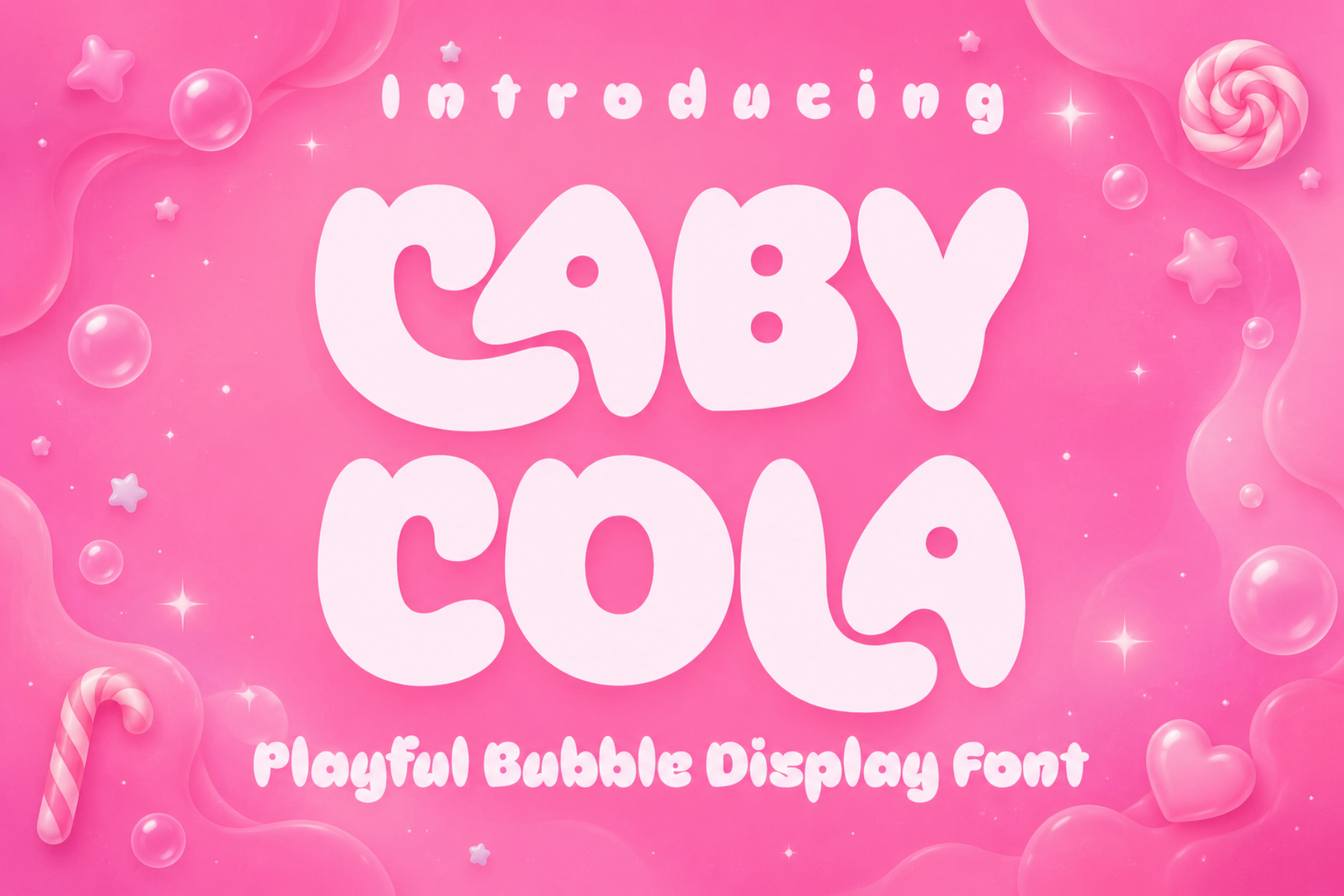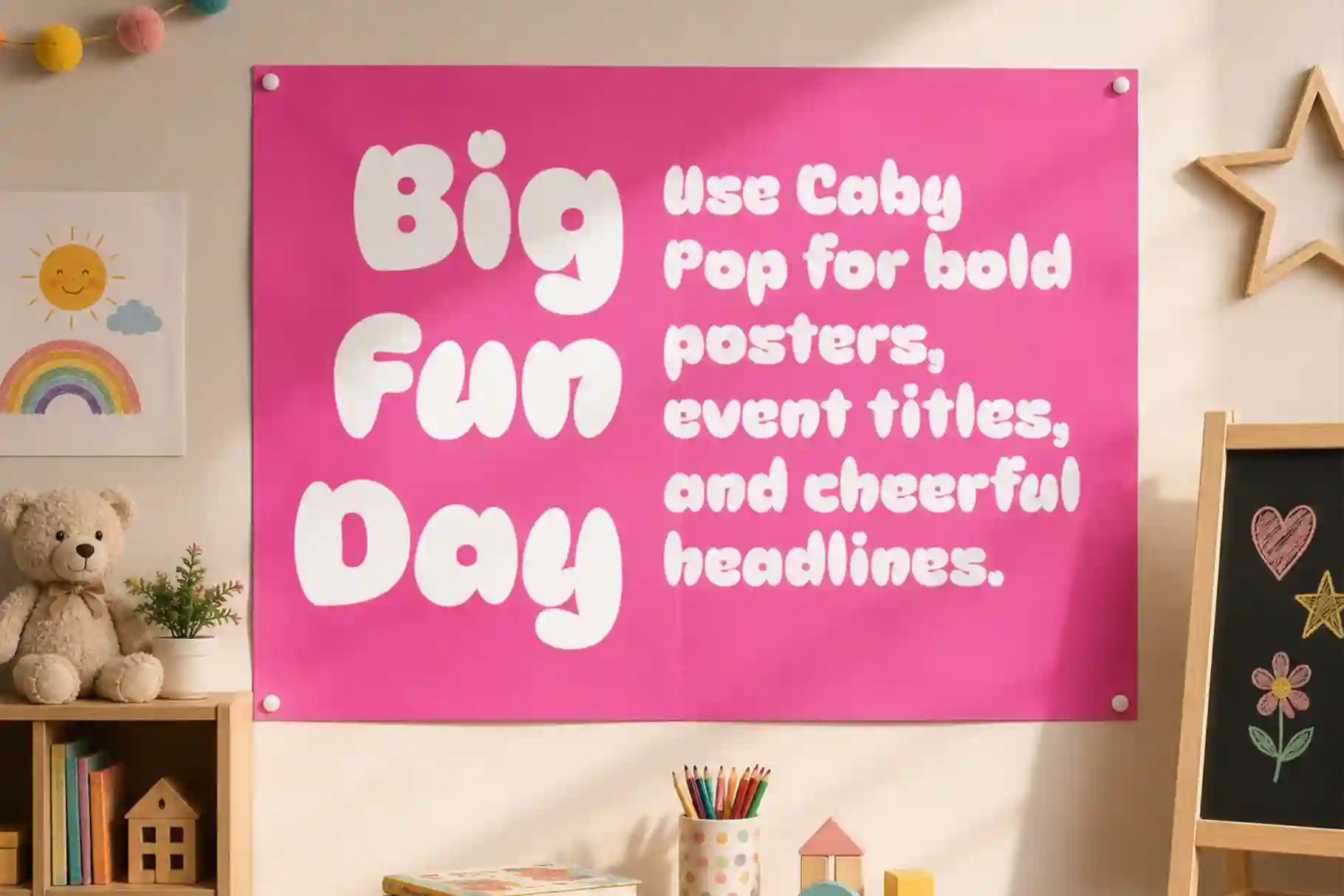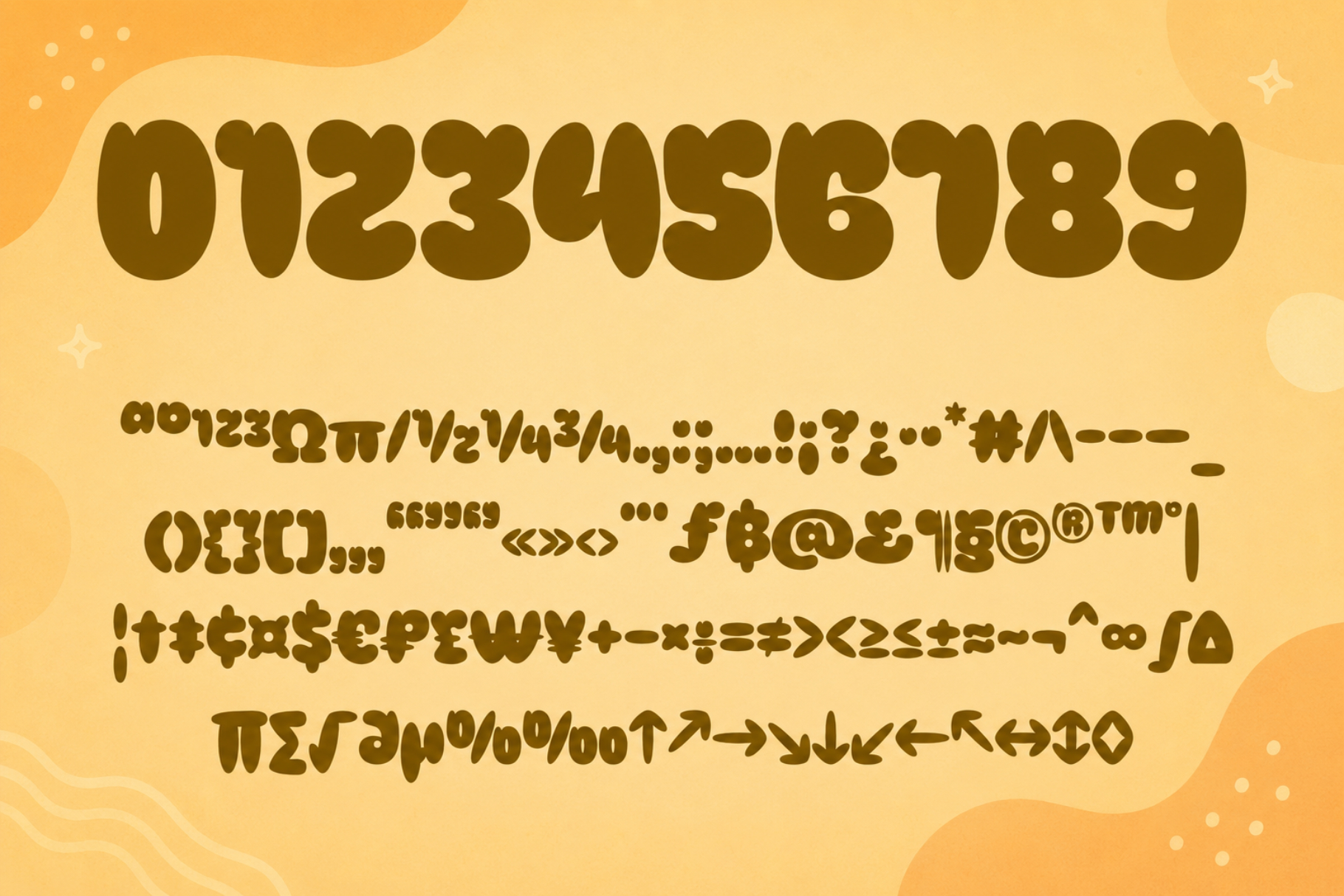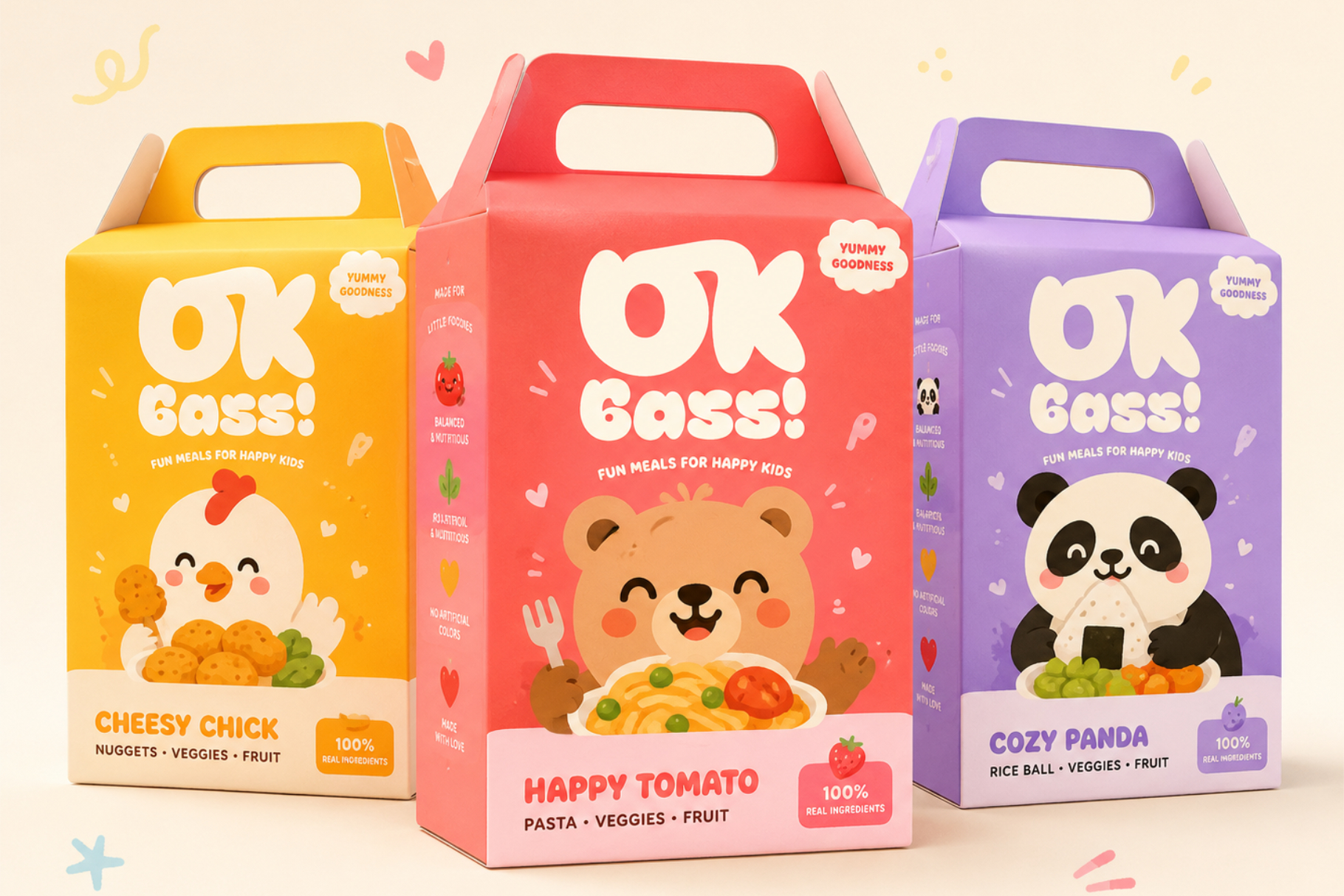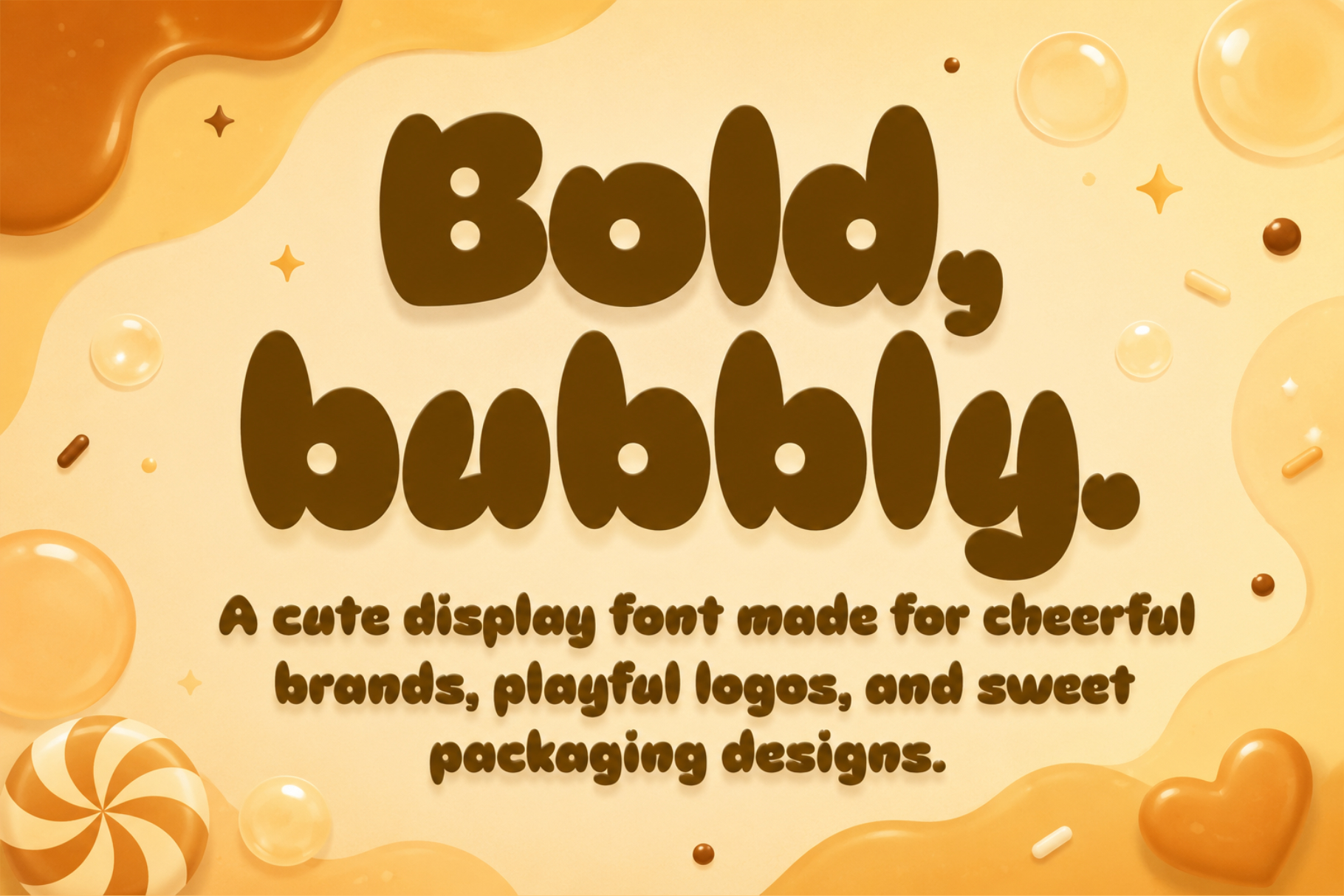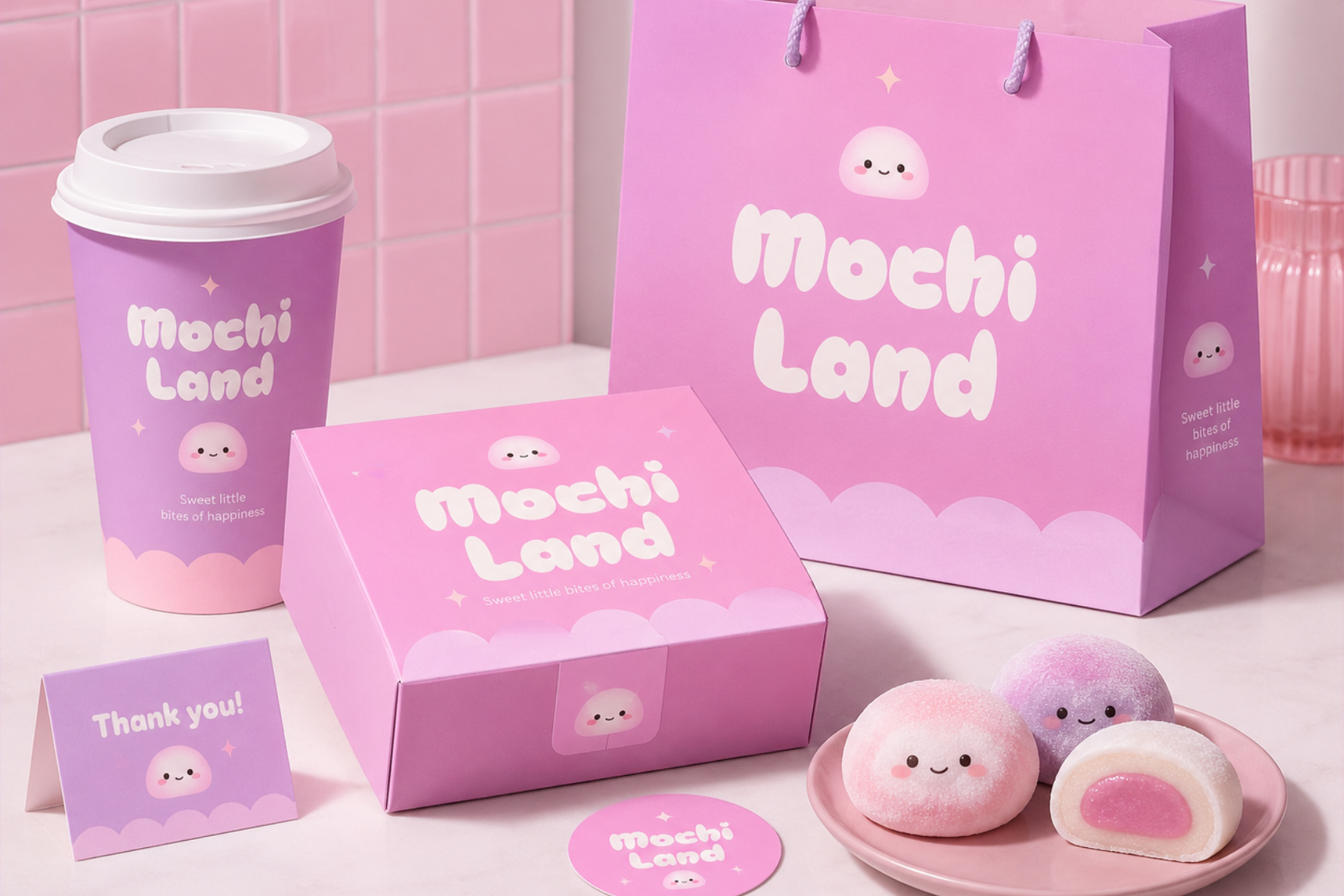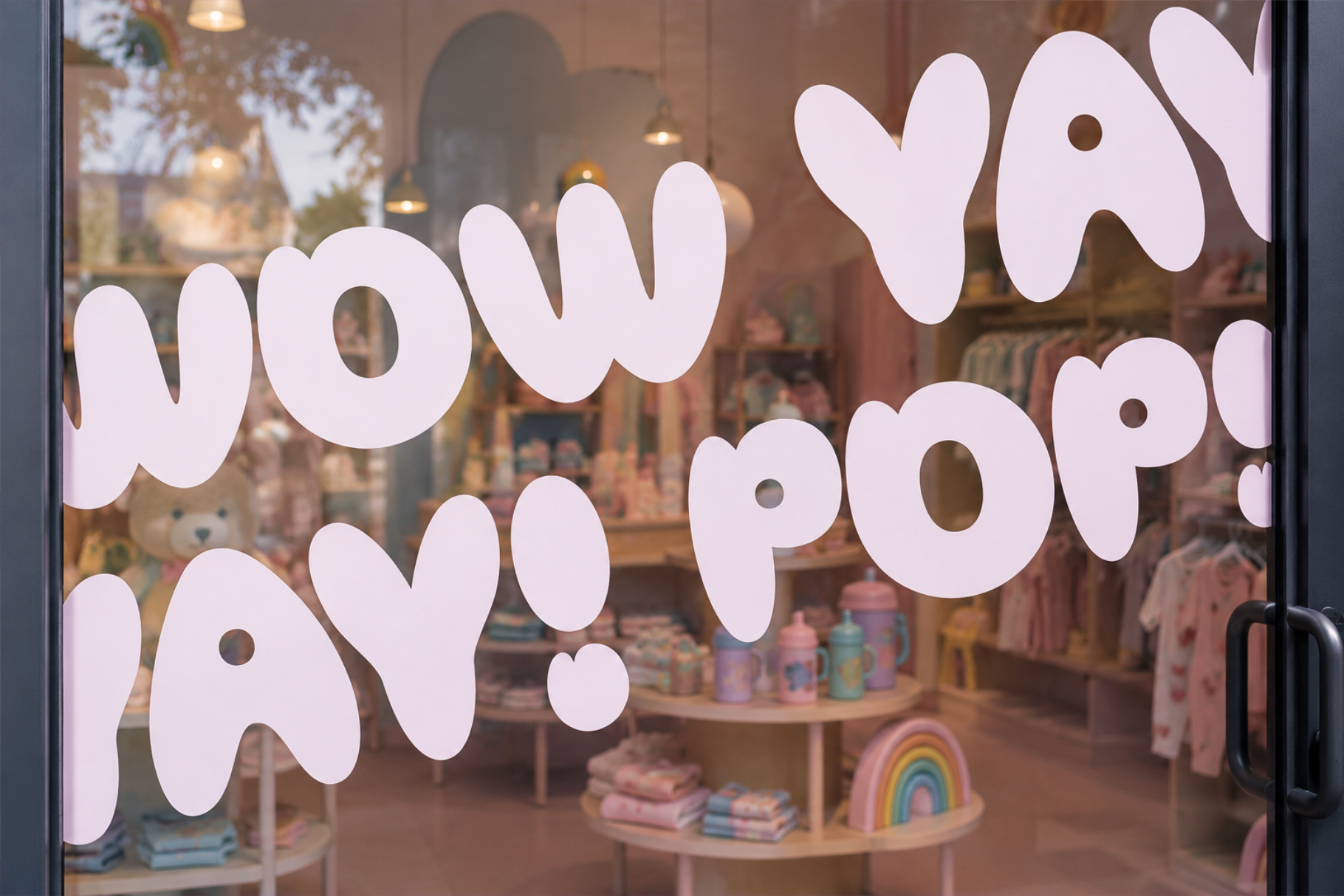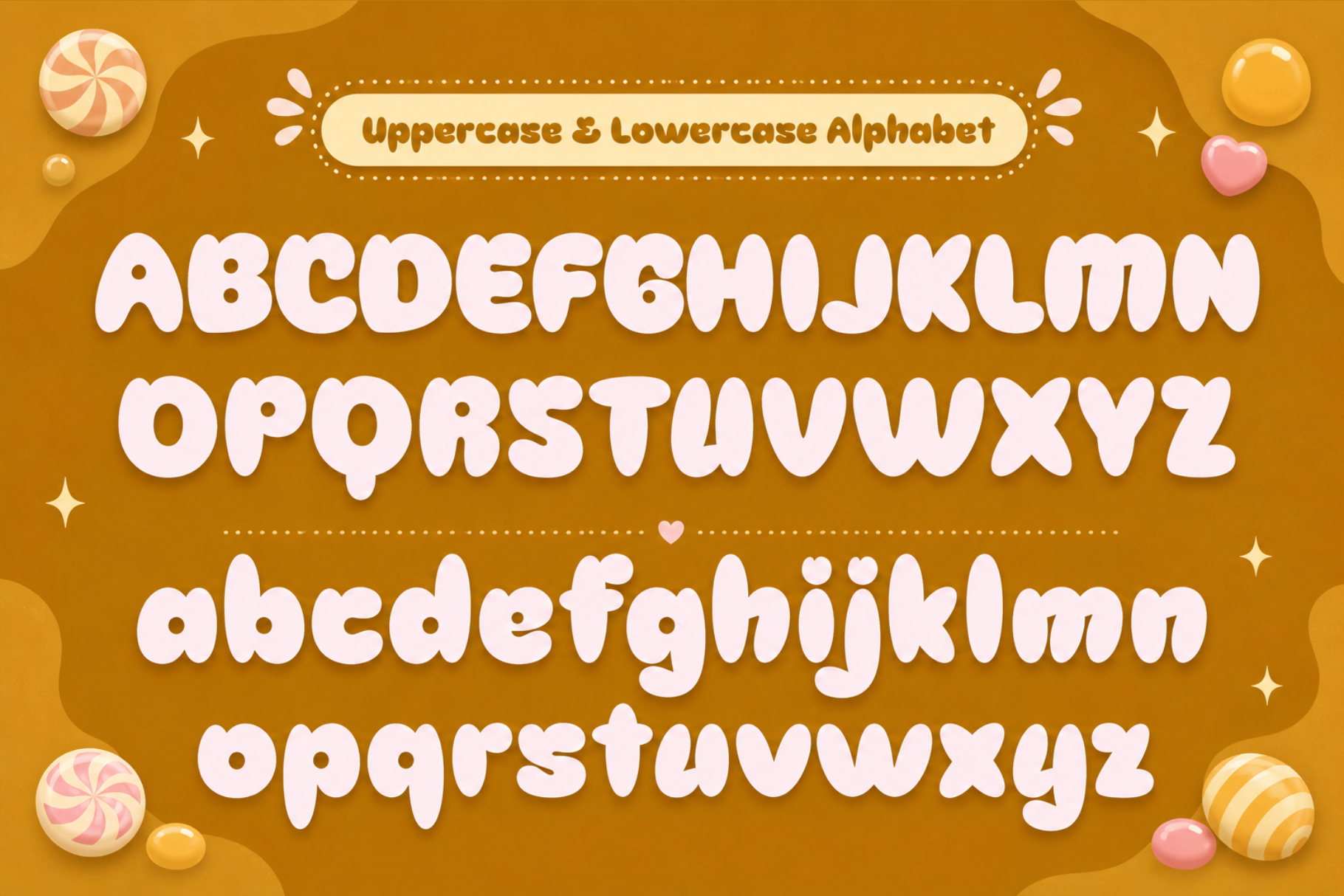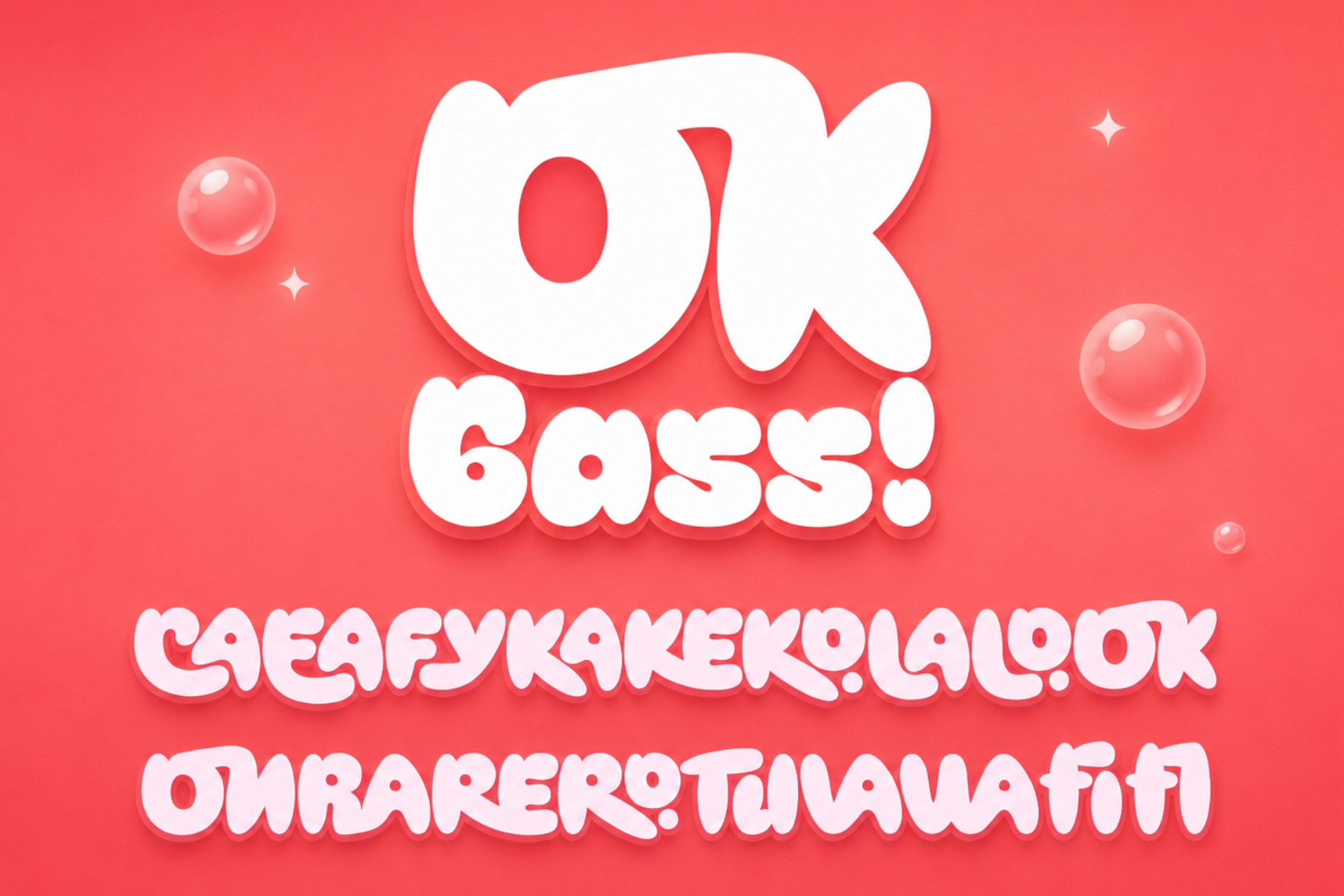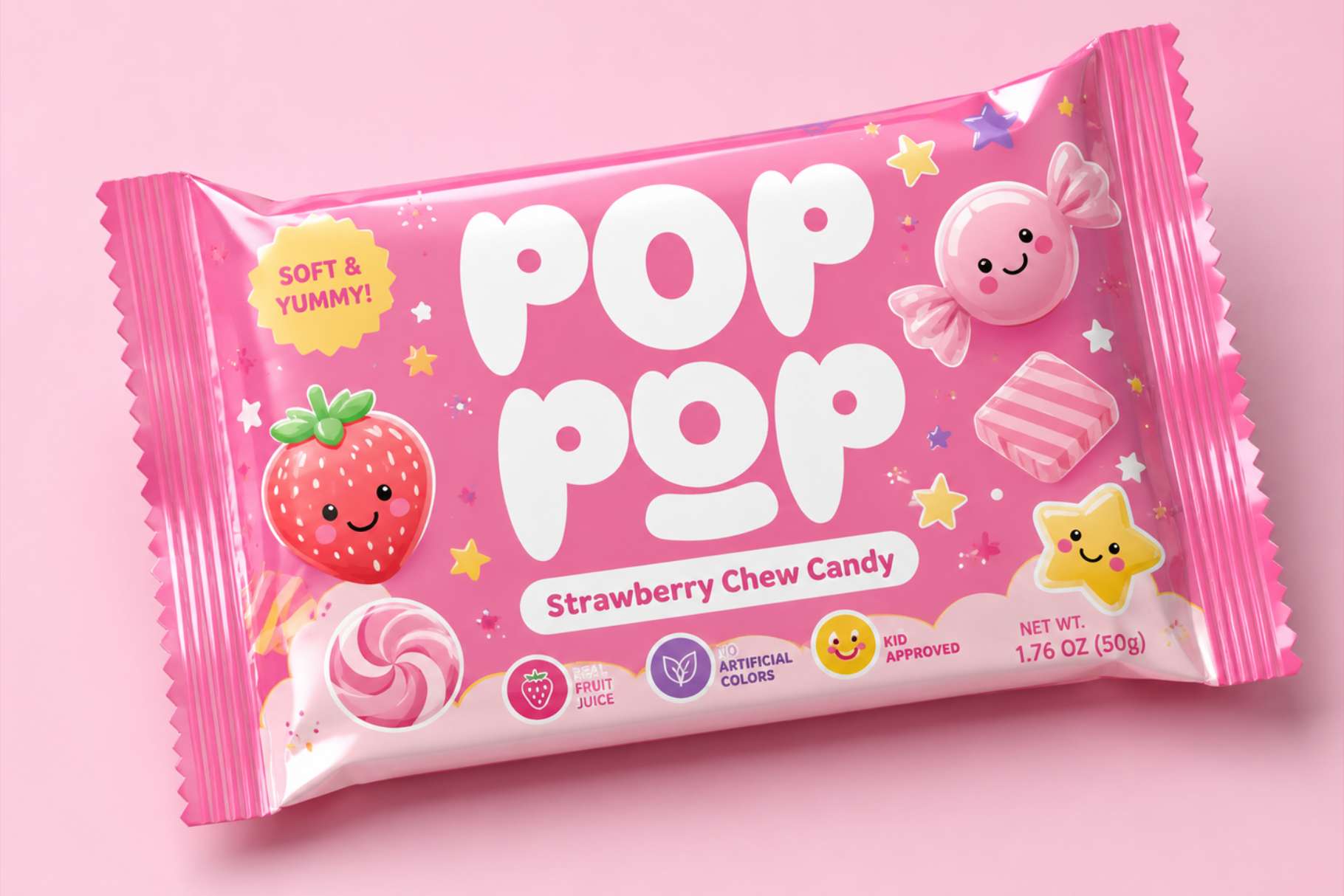
Caby Cola – Retro Bubble Display Font
Meet Caby Cola, a bold and playful display font inspired by retro candy packaging, fizzy drinks, groovy lettering, and cheerful cartoon graphics.
Caby Cola features chunky letterforms, rounded curves, tiny bubble-like counters, and expressive details that give every word a fun and memorable personality. Its friendly appearance works especially well for designs that need to feel energetic, youthful, sweet, and slightly nostalgic.
The font includes 17 decorative ligatures that transform selected letter combinations into more expressive and fluid compositions. These ligatures are ideal for creating distinctive logos, packaging titles, poster headlines, and custom-looking wordmarks without manually editing the letters.
An alternate uppercase O, standard ligatures, fractions, punctuation, symbols, and extensive multilingual Latin characters are also included to support a wide variety of creative projects.
Caby Cola is especially suitable for:
- Food and beverage packaging
- Candy, soda, cereal, and snack branding
- Children’s books and educational products
- Logos and playful brand identities
- Retro and groovy posters
- Stickers and merchandise
- Social media graphics
- YouTube thumbnails
- Birthday invitations
- Apparel and T-shirt designs
- Café, bakery, and dessert branding
- Editorial headlines and album artwork
Font Features
- Uppercase and lowercase letters
- Numerals and punctuation
- 17 decorative ligatures
- Standard
fiandflligatures - Alternate uppercase O
- Fractions and ordinal characters
- Currency and mathematical symbols
- Extensive multilingual Latin support
- OpenType features
- Carefully adjusted kerning and spacing
Caby Cola is made for large, expressive typography. Use it for short headlines, logos, packaging titles, and display compositions where its bold shapes and playful ligatures can stand out.
Big Bubbles. Sweet Attitude.